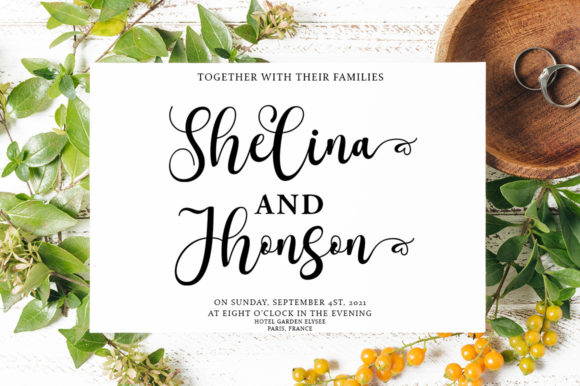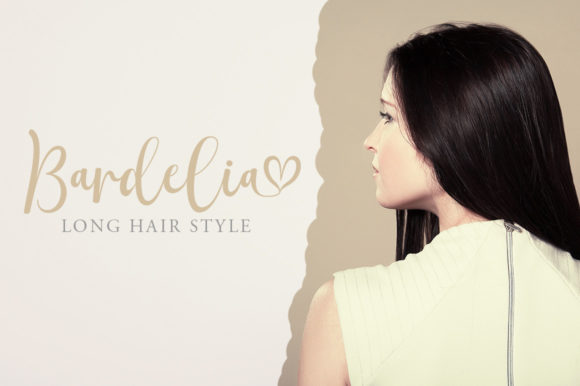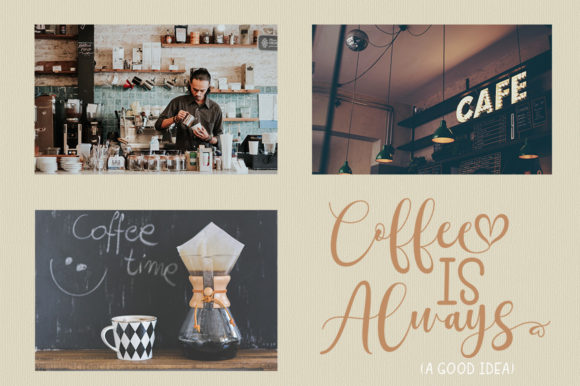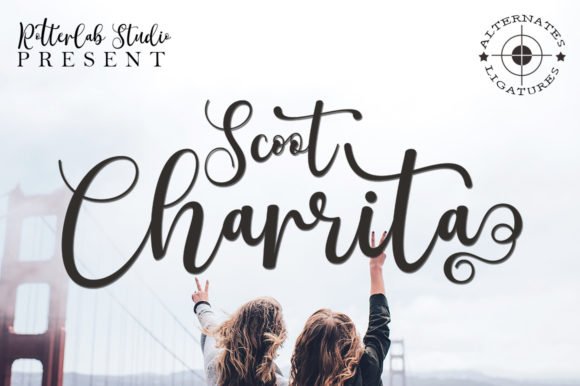
Introduction to Scoot Charrita Font
Scoot Charrita is a lovely and delicate script font that exudes elegance and class.
This font was particularly crafted for those who need a beautiful and refreshing look to their designs Scoot Charrita is PUA encoded which means you can access all of the glyphs and swashes with ease.
Key Features of Scoot Charrita Font
Why Choose Scoot Charrita Font?
Scoot Charrita Font offers exceptional quality and versatility, making it a valuable addition to your design toolkit. Whether you’re creating for personal projects or commercial use, Scoot Charrita Font delivers professional results.